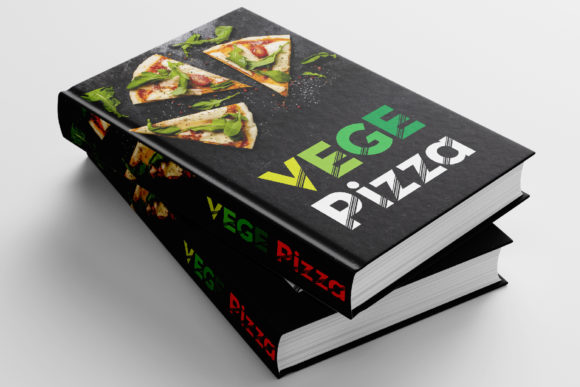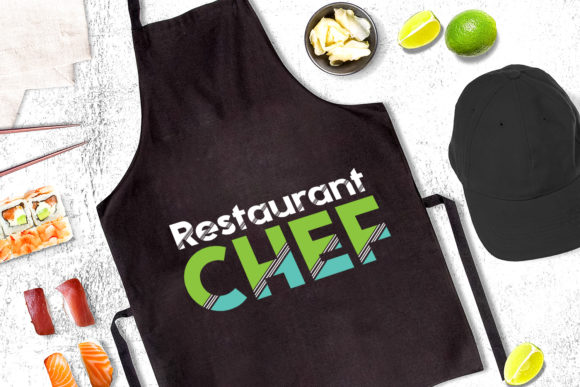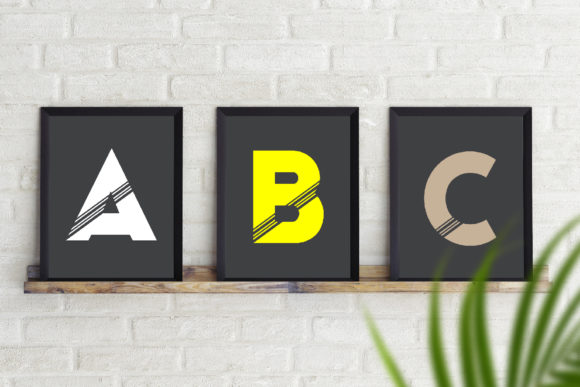
Introducing Glass Font: Elevate Your Designs with a Unique and Fresh Display Font
Are you tired of using the same old fonts for your designs? Do you want to create something original and outstanding? Look no further than Glass Font, a unique and fresh display font that’s perfect for making a statement. In this article, we’ll explore the features and benefits of Glass Font, and how it can elevate your designs to the next level.
What is Glass Font?
Glass Font is a modern and sleek display font that’s designed to add a touch of elegance and sophistication to your designs. With its clean lines, smooth curves, and transparent effects, Glass Font is perfect for creating eye-catching headlines, titles, and captions. Whether you’re a designer, crafters, or DIY enthusiast, Glass Font is a versatile font that can be used for a wide range of projects.
Key Features of Glass Font
• Unique and Fresh Design: Glass Font boasts a one-of-a-kind design that’s sure to grab attention. Its transparent effects and sleek lines make it perfect for creating modern and edgy designs.
• High-Quality Typography: Glass Font features high-quality typography with precise lettering and spacing. This ensures that your designs look professional and polished.
• Versatile and Flexible: Glass Font can be used for a wide range of projects, from branding and advertising to packaging and digital media.
• Easily Customizable: Glass Font is easily customizable, allowing you to adjust the font size, color, and style to suit your design needs.
Benefits of Using Glass Font
So, why should you use Glass Font for your designs? Here are just a few benefits:
• Stand Out from the Crowd: With Glass Font, you can create designs that stand out from the crowd. Its unique and fresh design ensures that your work will grab attention and leave a lasting impression.
• Enhance Your Brand: Glass Font can help enhance your brand identity by adding a touch of elegance and sophistication to your designs.
• Increase Engagement: The eye-catching design of Glass Font can help increase engagement and drive conversions. Whether you’re creating a website, social media post, or advertisement, Glass Font can help you get noticed.
How to Use Glass Font in Your Designs
Using Glass Font in your designs is easy. Here are a few tips to get you started:
• Pair it with Other Fonts: Glass Font pairs well with other fonts, such as sans-serif and script fonts. Experiment with different font combinations to create a unique and harmonious design.
• Adjust the Font Size and Color: Adjust the font size and color to suit your design needs. You can use Glass Font as a headline font or as a body font, depending on the context.
• Experiment with Effects: Glass Font features transparent effects that can add depth and dimension to your designs. Experiment with different effects, such as gradients and textures, to create a unique look.
Glass Font is a unique and fresh display font that’s perfect for making original and outstanding designs. With its clean lines, smooth curves, and transparent effects, Glass Font is sure to grab attention and elevate your designs to the next level. Whether you’re a designer, crafters, or DIY enthusiast, Glass Font is a versatile font that can be used for a wide range of projects. So why wait? Download Glass Font today and start creating stunning designs that stand out from the crowd!